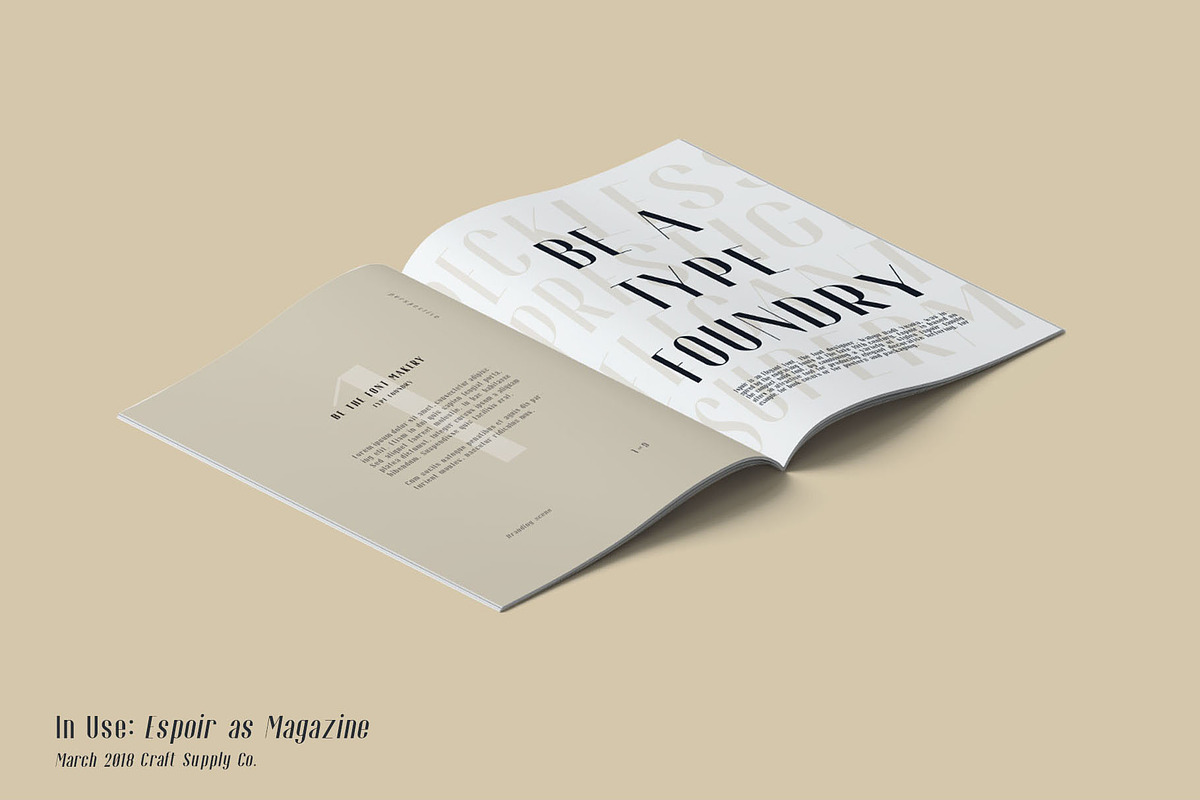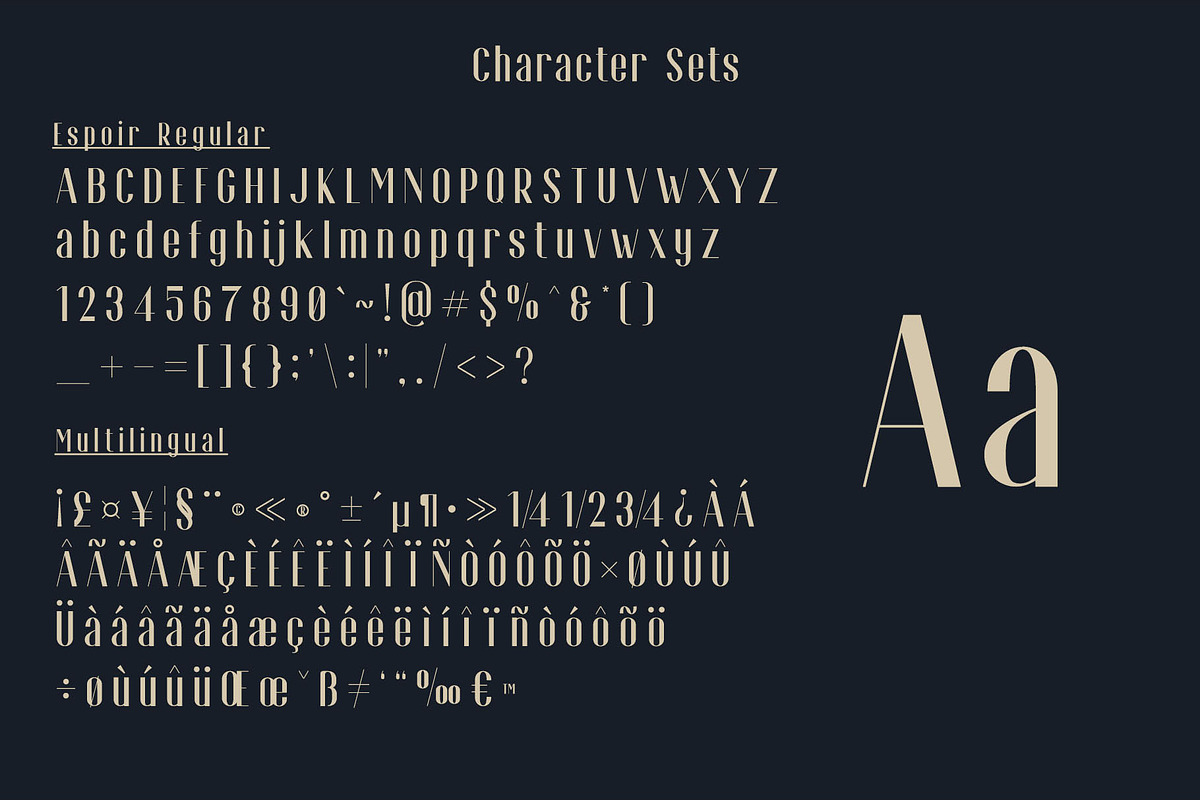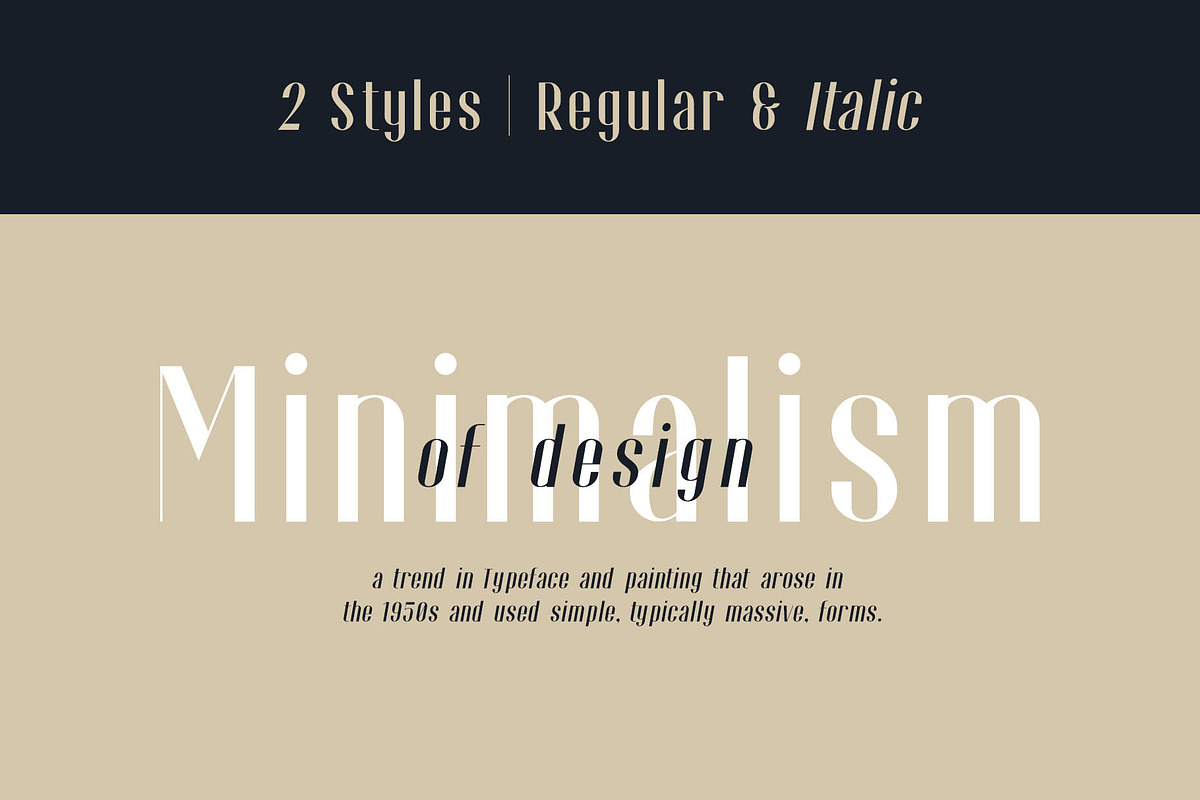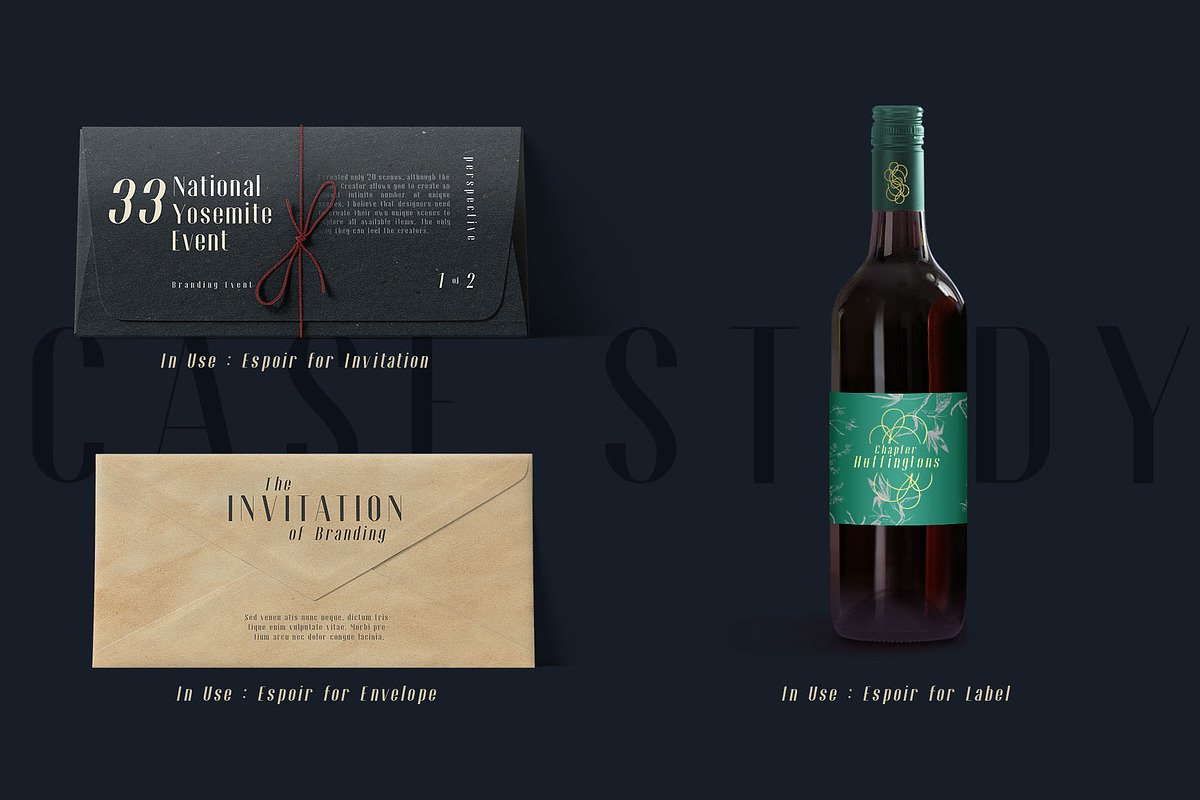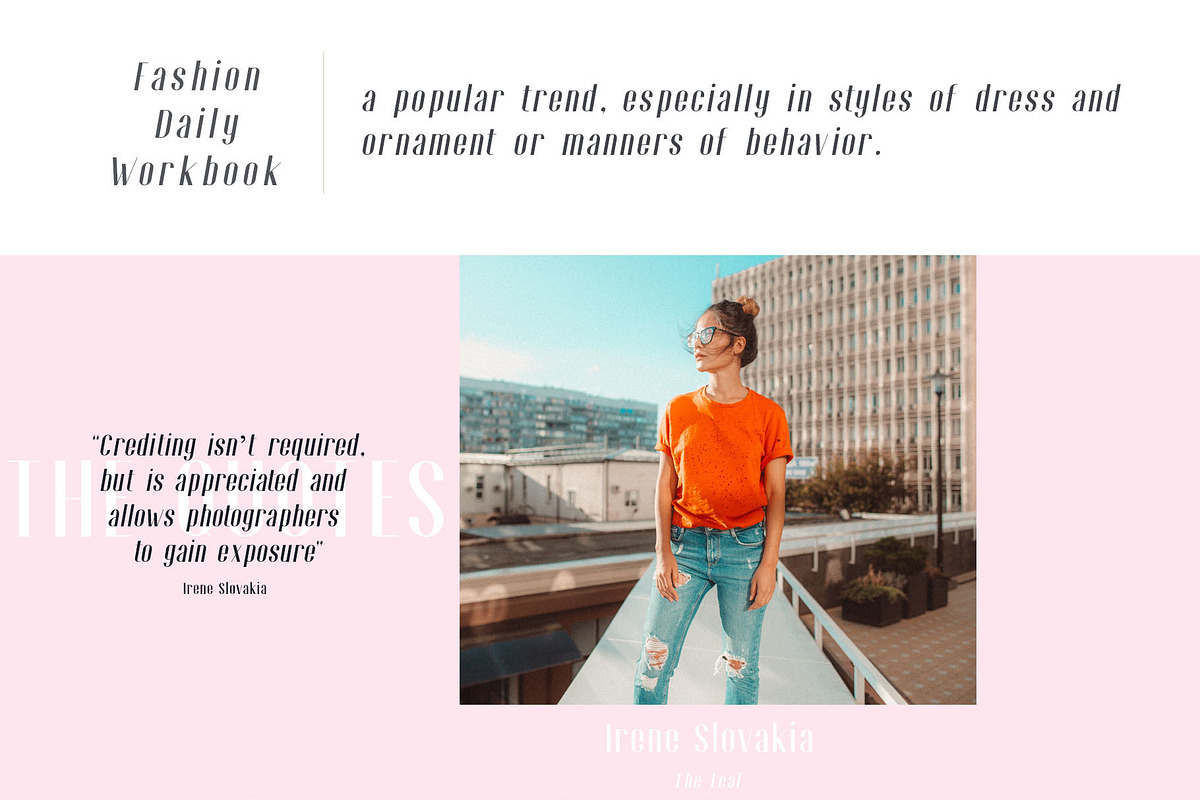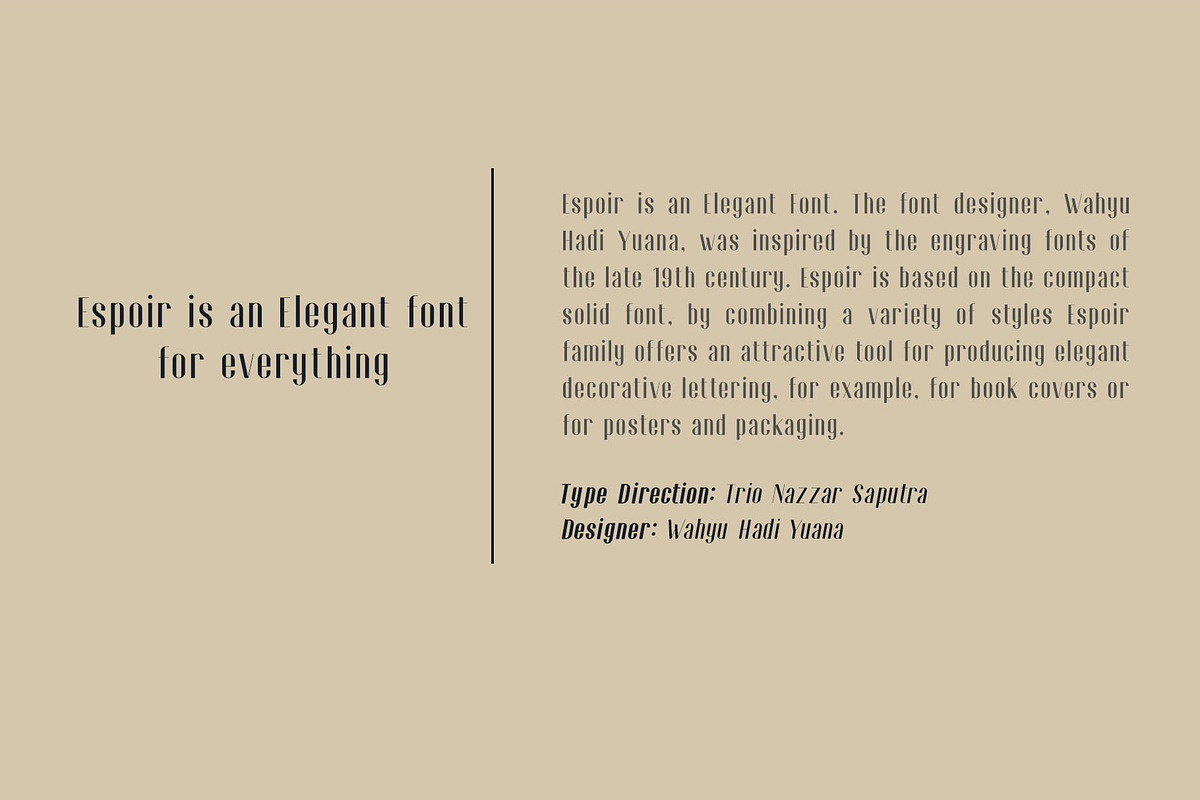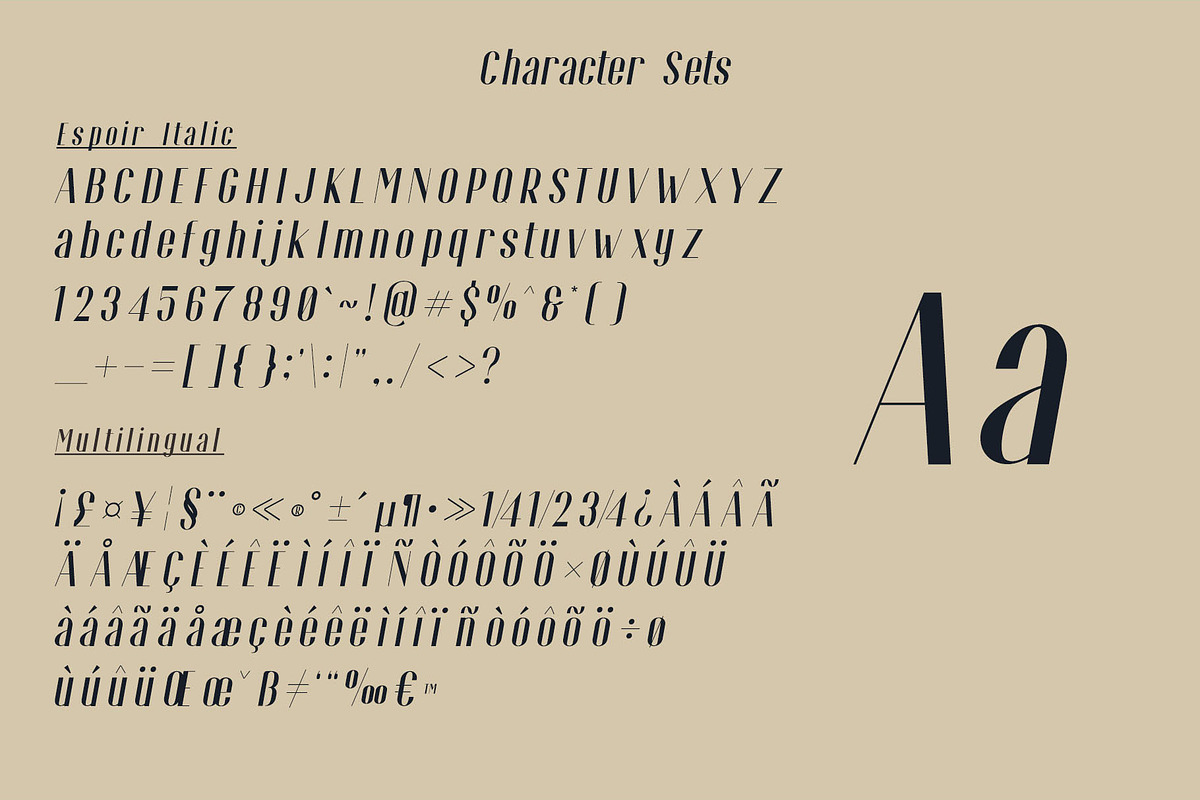
Espoir Font Family
Introducing Espoir font family is an Elegant and Fancy Font. This font was inspired by the engraving fonts of the late 19th century. Espoir is based on the compact solid font, by combining a variety of styles. Espoir font family offers an attractive tool for producing elegant decorative lettering, for example, for book covers or for posters and packaging.
You want to make a greeting card or a package design, or even a brand identity, craft design, any DIY project, book title, wedding font, pop vintage design, retro design or any purpose to make your art / design project look Elegant and Classy? Feel free to play with this font!
1. Upper Case & Lowercase
2. Stylistic Alternates
3. Standart Ligatures
4. Numerals & Punctuations (OpenType Standard)
5. Accents (Multilingual characters)